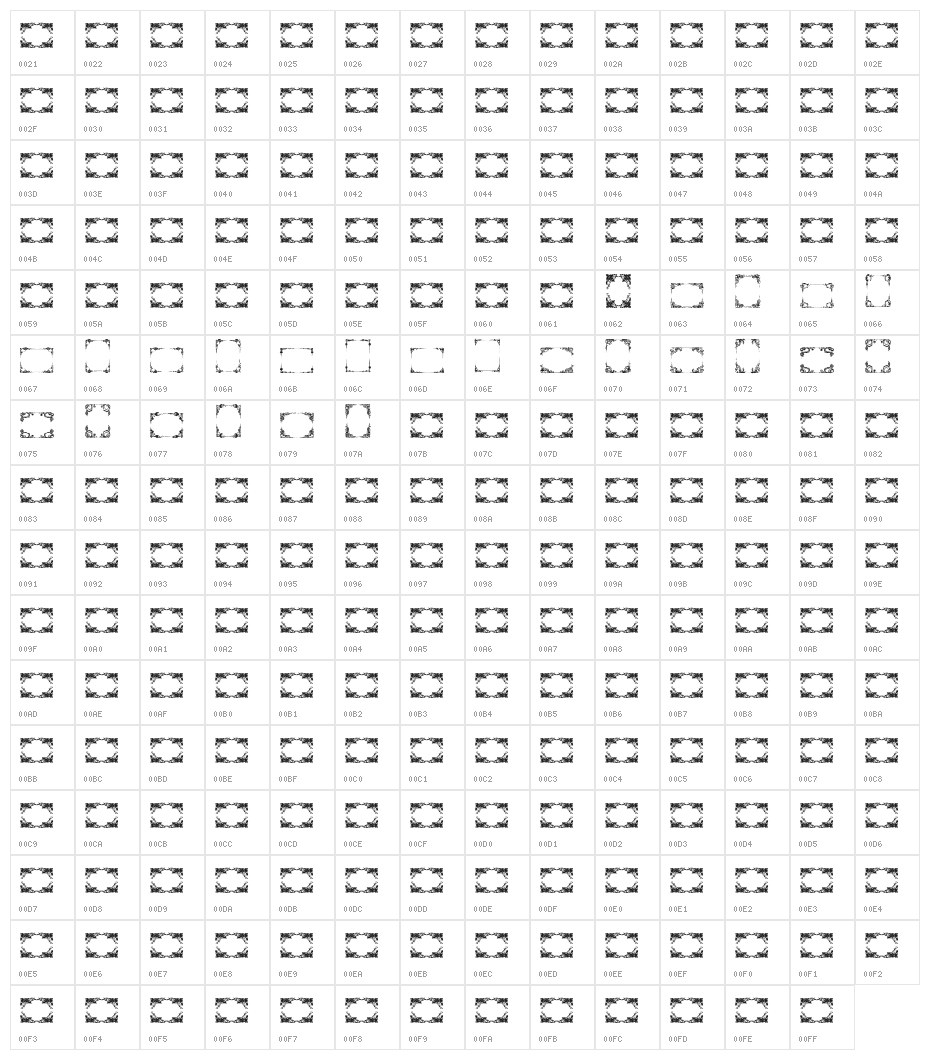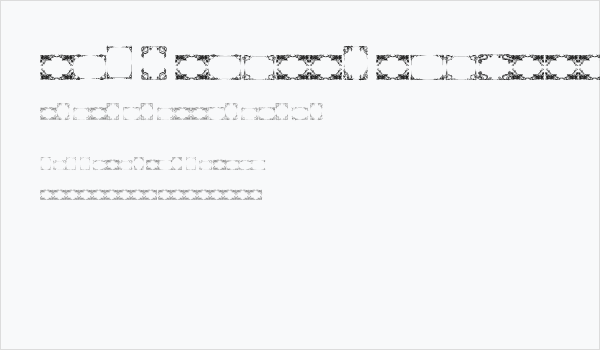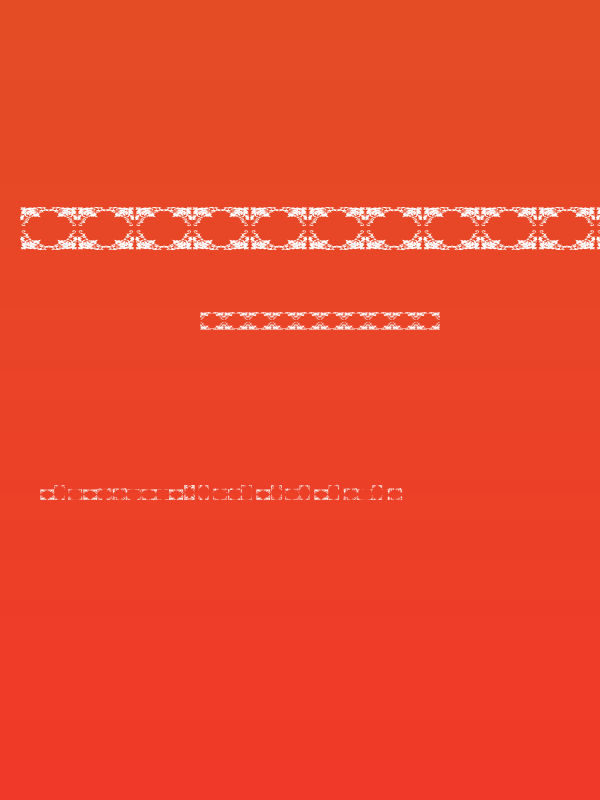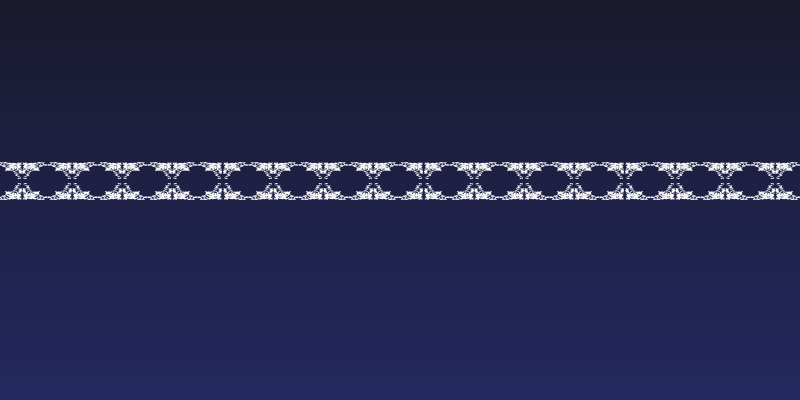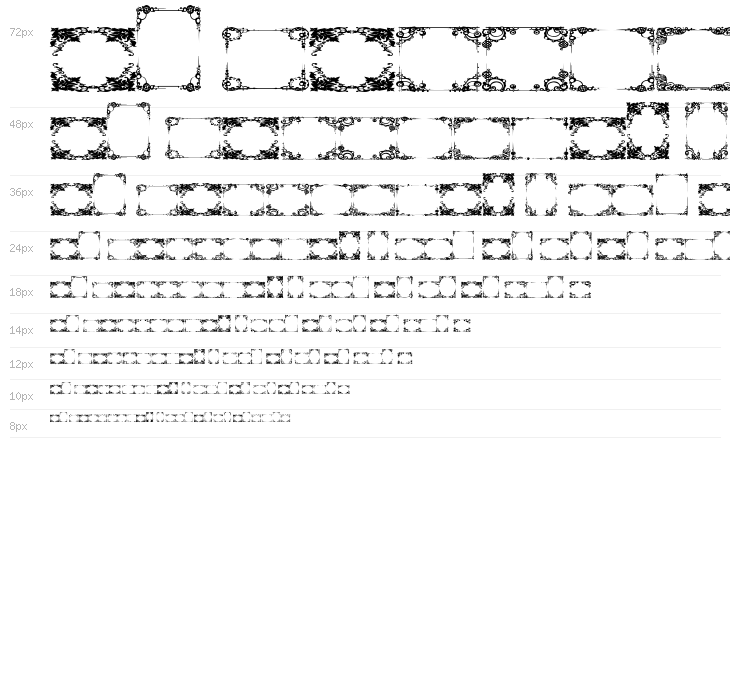
Vintage Frames 16 Font
Highly decorative, ornate frame and border designs with intricate vintage flourishes, forming rectangular and circular shapes suitable for embellishing text or images.
Overall StyleVintage, Decorative
Use CaseBorders, Frames, Decorative accents
Proposed ProjectsInvitations, certificates, greeting cards, decorative labels, scrapbooking, vintage-themed posters.